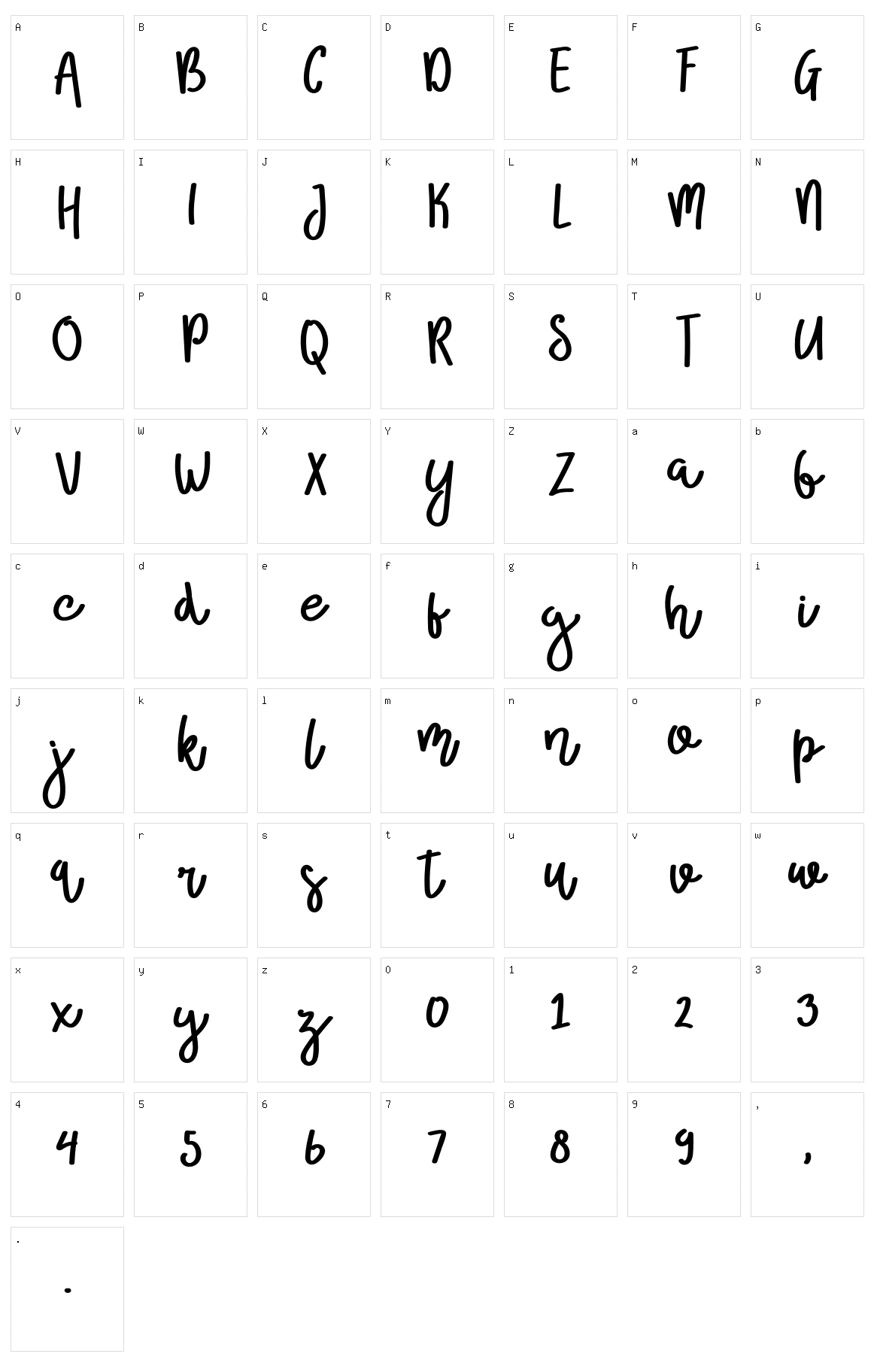
The free font Broolia is carefully designed by Eknoji Studio, showcasing a thoughtful balance of creativity and usability and falls under the Script font style. When you download the ZIP file, it contains only 40.25 KB of font files, making it lightweight and quick to download. Please review the license details below to understand permitted usage and distribution rights. If license information is not available, we recommend using this font for personal projects only or contacting the author directly for commercial usage permissions.
Broolia by EKNOJI